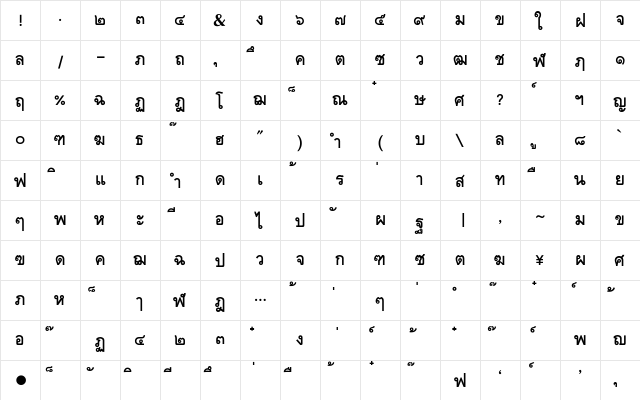
TATM001 Regular
Design Context for TATM001 Typeface
TATM001 takes a measured approach to typography — its balanced proportions and neutral character make it a reliable workhorse for both digital and print work.